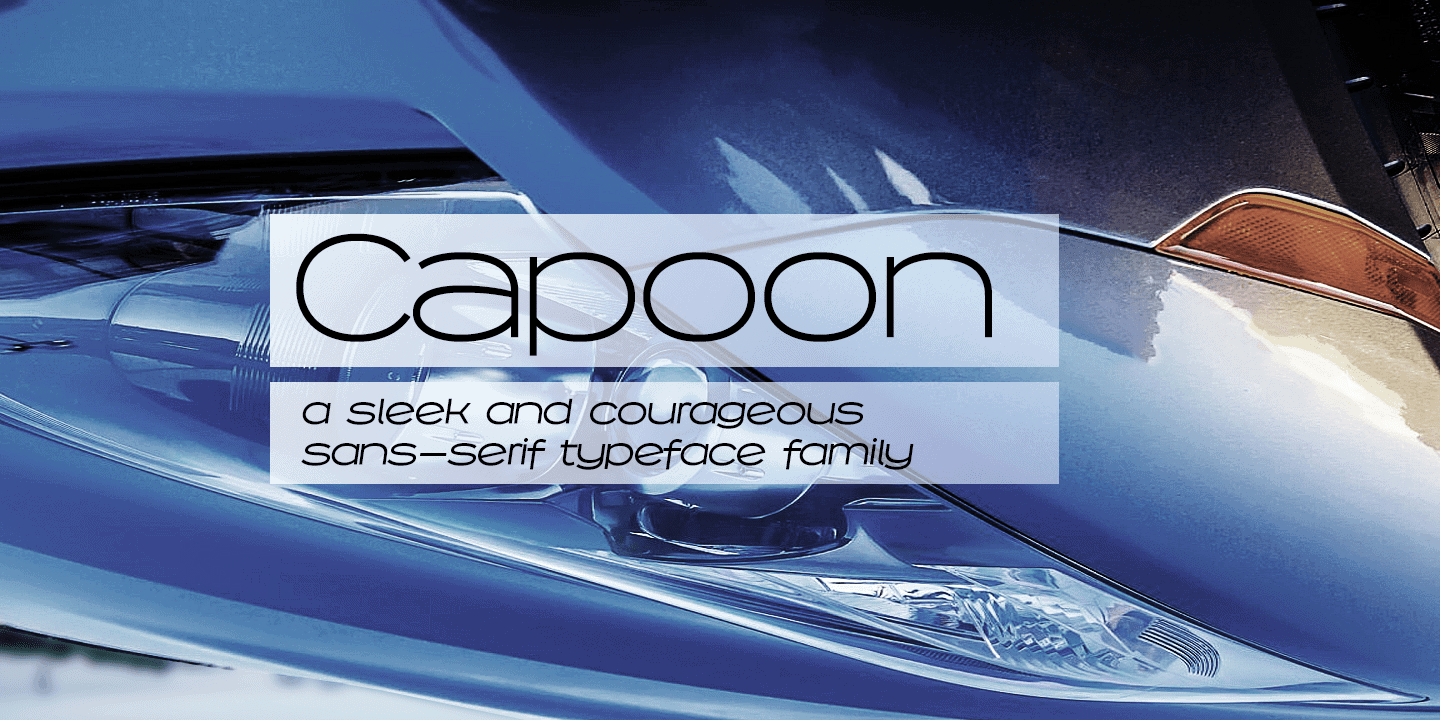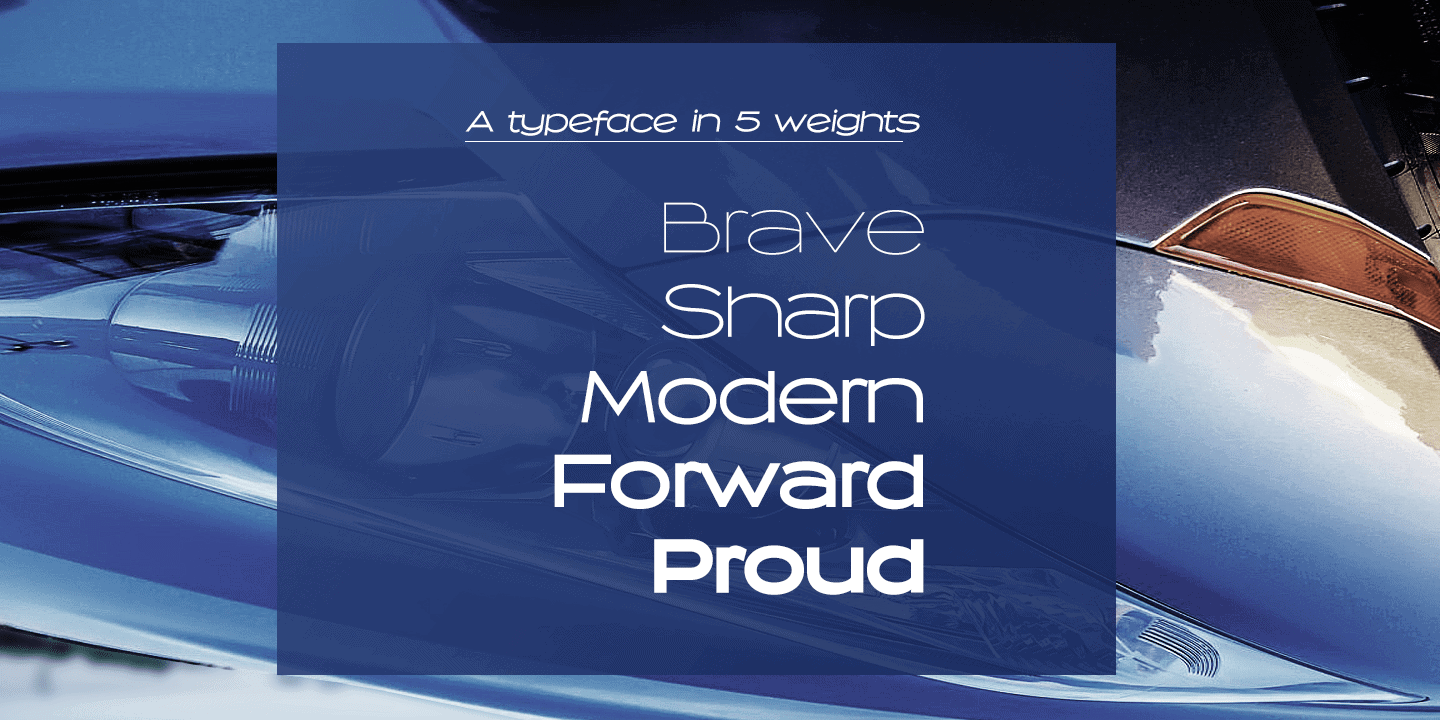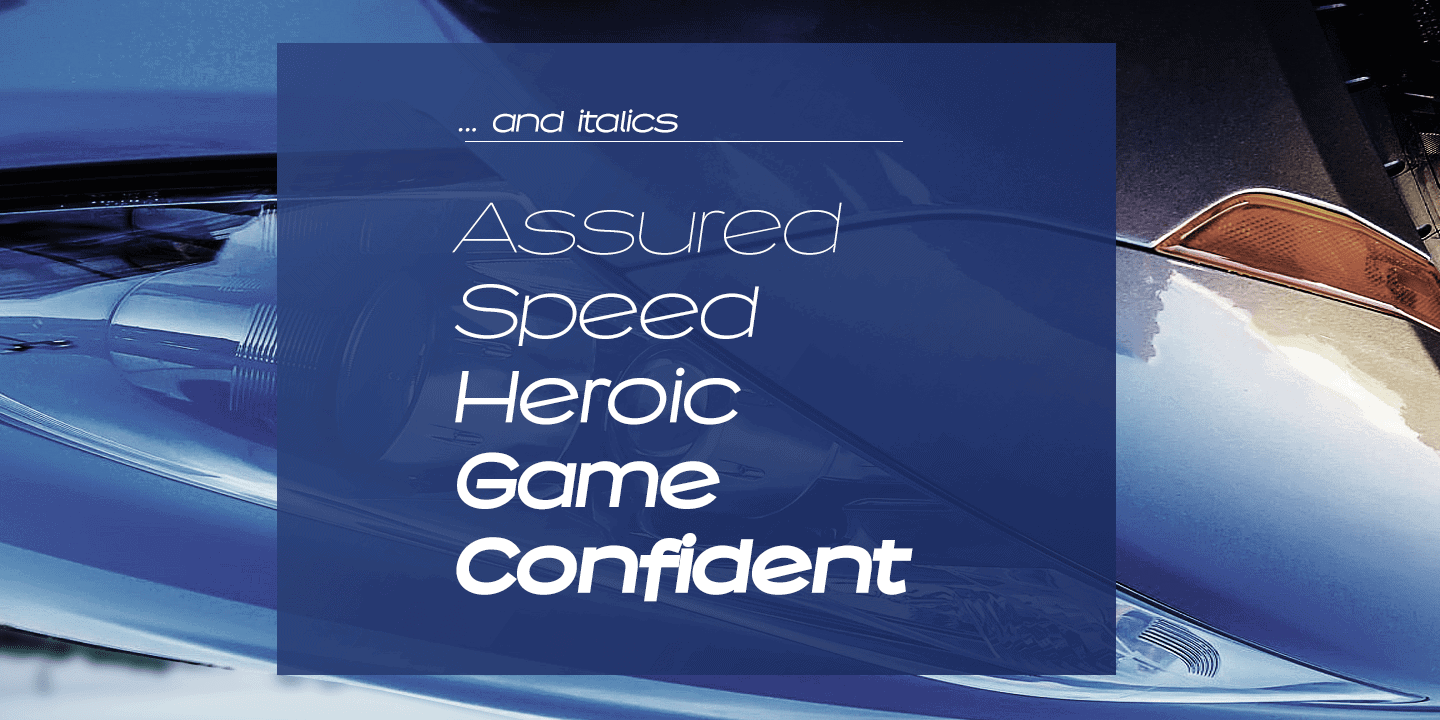
Capoon
Capoon is a sleek sans-serif typeface family in ten styles.
It is drawn by Måns Grebäck during 2017 and 2018. The curves and wideness of the glyphs gives the type a fast and confident character. The family consists of five weights, and each weight as italic:
Capoon Thin, Capoon Light, Capoon Medium, Capoon Bold and Capoon Black
Capoon is a high-quality font with hundreds of glyphs and support for all major European and Latin-based languages.